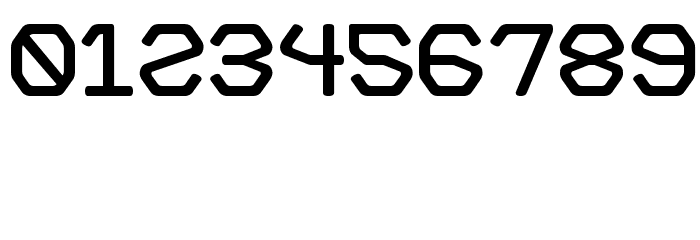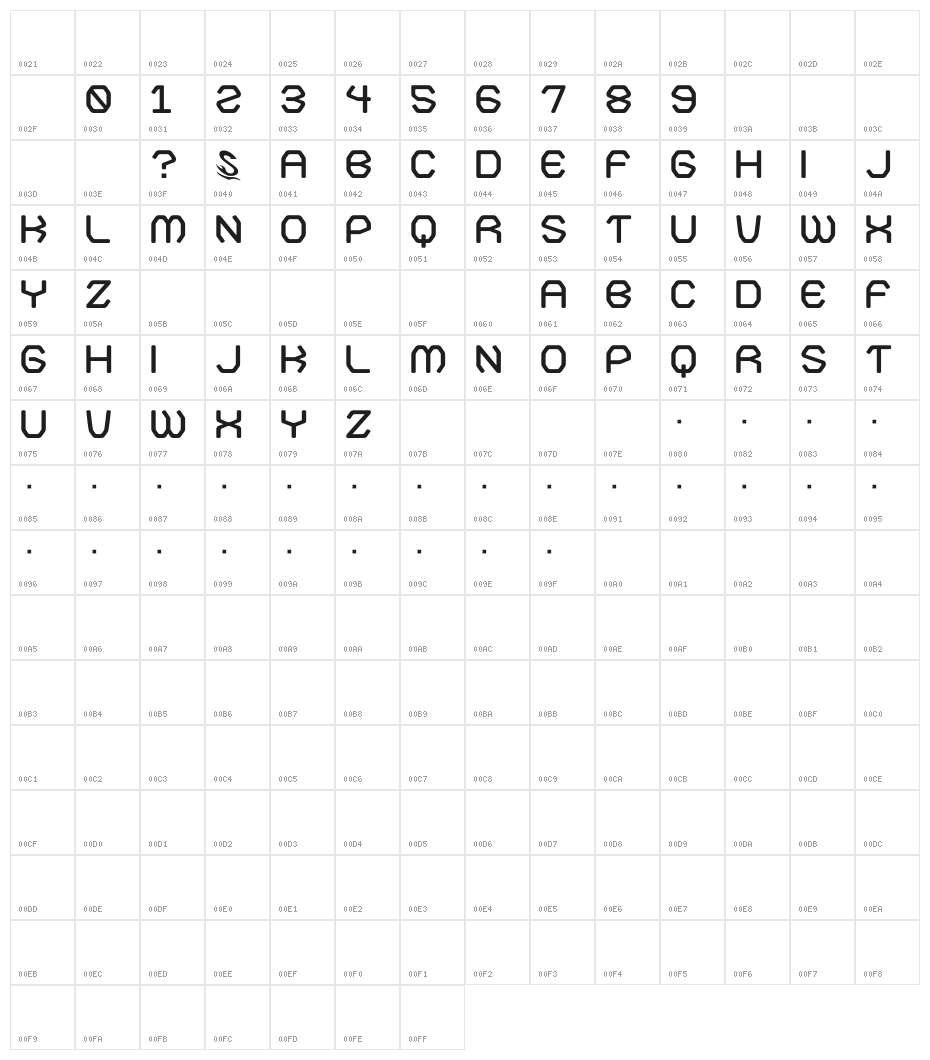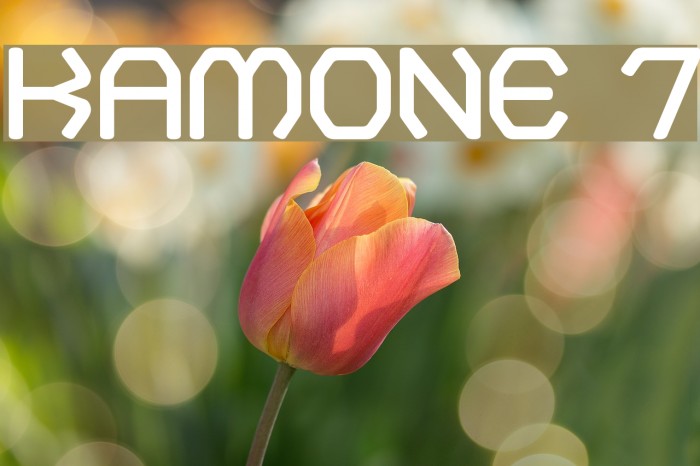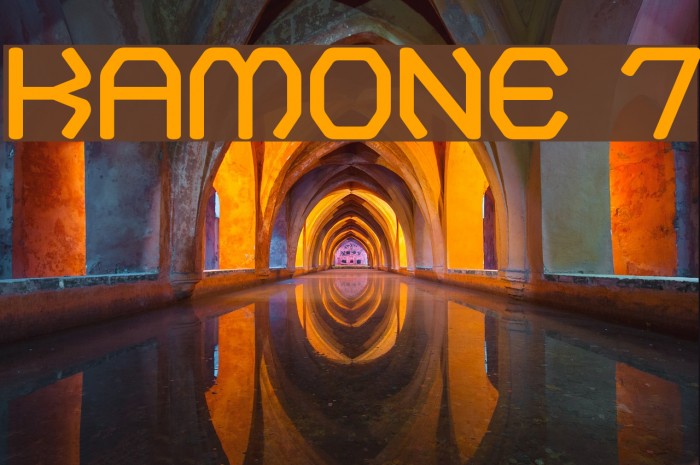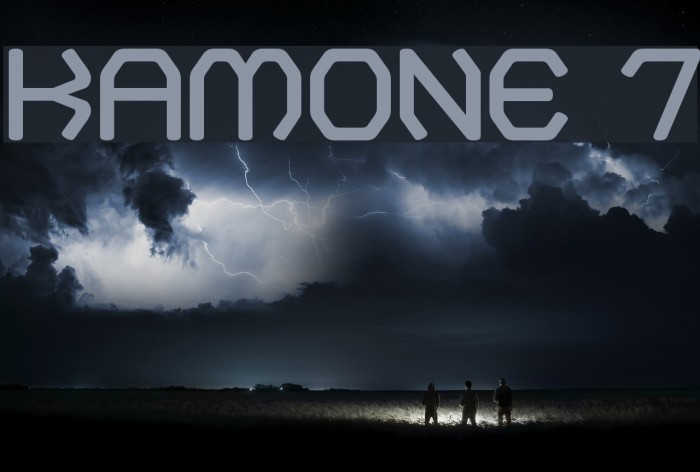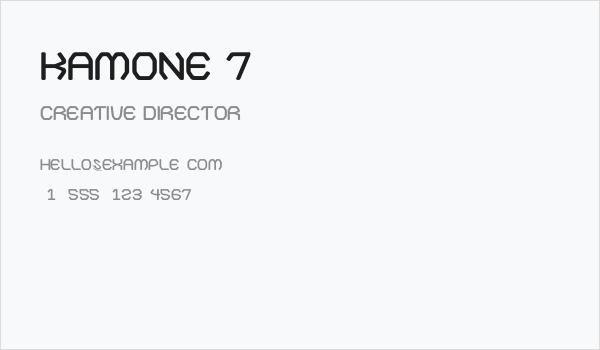
Kamone 7 Font
Kamone 7 Description
This font features a geometric and modern design with a distinct octagonal shape for each character. The uniformity in line thickness and the angular corners give it a futuristic and technical appearance. The uppercase letters are bold and structured, while the numerals maintain the same geometric consistency. The font's clean lines and sharp angles make it highly legible, even at smaller sizes. It lacks any decorative elements, focusing instead on a minimalist and efficient aesthetic. The characters are evenly spaced, contributing to its readability and modern appeal.
| Use Case | Logos, Headlines, Digital Interfaces |
| Proposed Projects | Ideal for technology branding, digital interfaces, and modern advertising campaigns. |